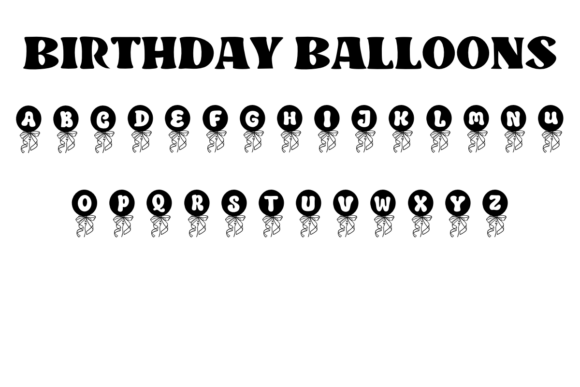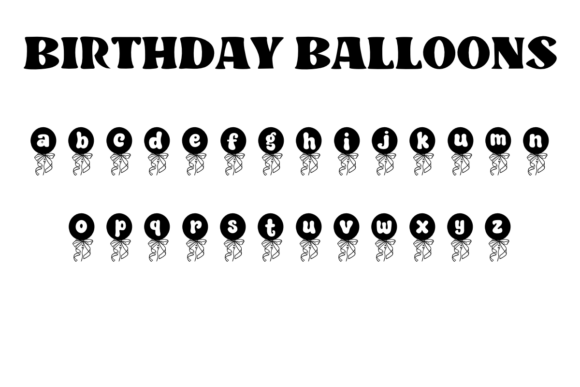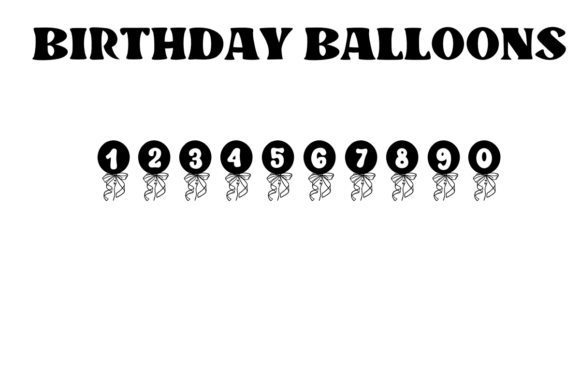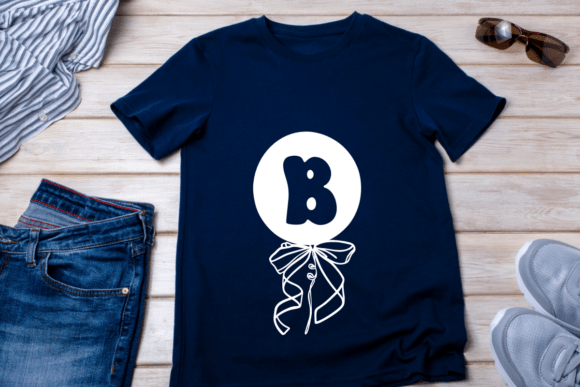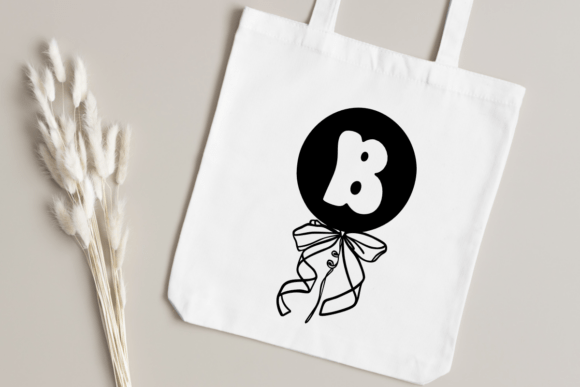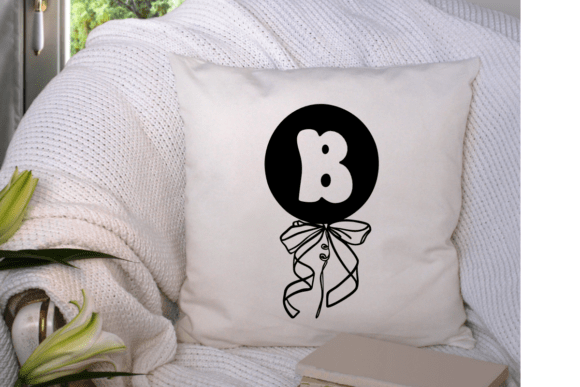
Birthday Balloons Font: Add a Festive Touch to Your Designs
Are you looking for a fun and playful font to add a touch of festivity to your designs? Look no further than the Birthday Balloons font! This decorative font is perfect for making your designs stand out, whether you’re creating greeting cards, banners, or social media posts. In this article, we’ll explore the features and uses of the Birthday Balloons font, and show you how to incorporate it into your designs.
What is Birthday Balloons Font?
Birthday Balloons font is a decorative font designed to resemble colorful balloons, perfect for adding a playful touch to your designs. The font features rounded and curly letters, with a bouncy and carefree feel that’s sure to bring a smile to anyone’s face. The font is highly versatile and can be used for a wide range of design projects, from personal to commercial.
Uses of Birthday Balloons Font
So, what can you use the Birthday Balloons font for? The possibilities are endless! Here are some ideas to get you started:
- Greeting Cards: Create personalized birthday cards, holiday cards, or thank-you cards with a festive touch.
- Banners: Design eye-catching banners for parties, events, or promotions with a fun and playful font.
- Social Media Posts: Add a pop of color and whimsy to your social media posts, whether it’s a Facebook post, Instagram story, or Twitter tweet.
- Mugs and Water Bottles: Create fun and colorful designs for mugs, water bottles, or other drinkware.
- T-Shirts and Apparel: Design playful and eye-catching apparel, such as t-shirts, hoodies, or tote bags.
- Stationery: Add a touch of personality to your stationery, including notebooks, journals, or stickers.
- Content: Use the Birthday Balloons font to create engaging and shareable content, such as blog posts, flyers, or brochures.
Tips for Using Birthday Balloons Font
Here are some tips for getting the most out of the Birthday Balloons font:
- Keep it simple: Don’t overdo it with too many colors or fonts. Keep your design simple and focused on the message.
- Mix and match: Combine the Birthday Balloons font with other fonts or graphics to create a unique and eye-catching design.
- Experiment with colors: Try out different color combinations to find the perfect match for your design.
- Pay attention to size: Make sure the font is large enough to be readable, but not so large that it overwhelms the design.
The Birthday Balloons font is a fun and versatile font that’s perfect for adding a touch of festivity to your designs. Whether you’re a designer, crafter, or simply someone who loves to create, this font is sure to bring a smile to your face and inspire your creativity. With its wide range of uses and easy-to-use design, the Birthday Balloons font is a must-have for anyone looking to add a little whimsy to their designs.